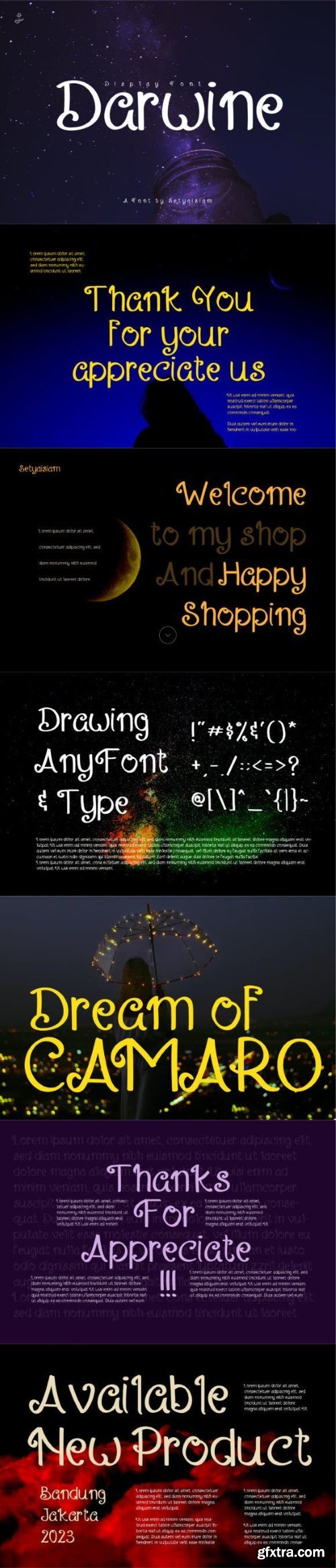
达文西字体
Darwine is a fun and quirky display font. Whether you use it for cartoon-related designs, children's games, or just any creation that requires a lovely touch, this font will be an amazing choice.